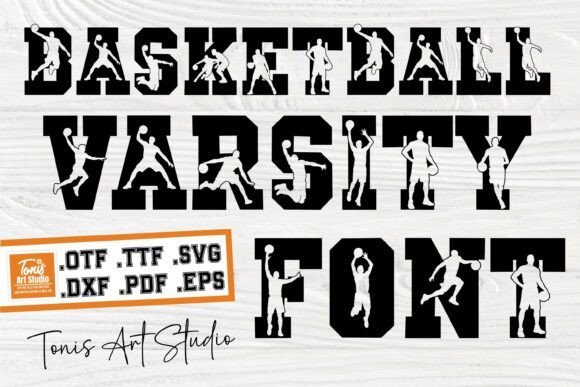
The Perfect Shot: Unleashing the Power of Basketball Varsity Font
You know that moment when you’re brainstorming ideas for a sports-themed project and everything just clicks? The excitement, the energy, the thrill of the game – it all comes together in a single, electrifying moment. For designers and fans of basketball, that moment often starts with the Basketball Varsity Font.
This clever display typeface is more than just a font – it’s a celebration of the game itself. With every letter a unique “player” on the court, the Basketball Varsity Font is the ultimate choice for sports-related creative work. Its bold, blocky letterforms echo the classic collegiate style, providing a sturdy framework for the athletic imagery within. Whether you’re a fan, a team, or a brand, the Basketball Varsity Font is a valuable tool in your creative arsenal, perfect for creating standout designs that instantly communicate the theme.
As a designer, you’ll love the flexibility and versatility of the Basketball Varsity Font – from t-shirt designs to tournament posters, it’s the perfect choice for DIY crafters and professionals alike.
Basketball Varsity Font Key Features
- Unique Characteristics: Basketball Varsity Font features a distinctive, bold, and eye-catching design, with thick lines and a rugged texture that evokes the spirit of classic sports fonts.
- Font Style: The font is available in a single style, with a range of weights and widths to accommodate various design needs.
Designer Review: Basketball Varsity Font
Overall, I think the Basketball Varsity Font has some great qualities, but also some areas where it falls short. ✨
- Unique and bold design, perfect for sports teams or athletic brands.
- Well-suited for use in conjunction with action-packed imagery and graphics.
- Can effectively convey a sense of energy and excitement.
Limitsations:
- May be too flashy or over-the-top for some brands or designs.
- Lack of versatility in terms of font styles or weights.
- Not ideal for use in professional or corporate settings.
- Some characters may appear pixelated or rough at larger font sizes.
In terms of overall impression, I’d say the Basketball Varsity Font is a solid choice for the right project. It’s fun, energetic, and attention-grabbing. However, it may not be the best fit for every brand or design style. As a designer, it’s essential to weigh the pros and consider the specific needs of your project before making a decision.
Use the Basketball Varsity Font to create bold and eye-catching text for sports-related designs, such as team logos, jerseys, and scoreboards.
Combine the font with other sports-themed graphics and elements to create a cohesive and engaging design.
Experiment with different font sizes, colors, and arrangements to achieve the desired visual effect.
Team logos and branding
Sports jerseys and apparel
Scoreboards and game-day graphics
Marketing materials and promotional items